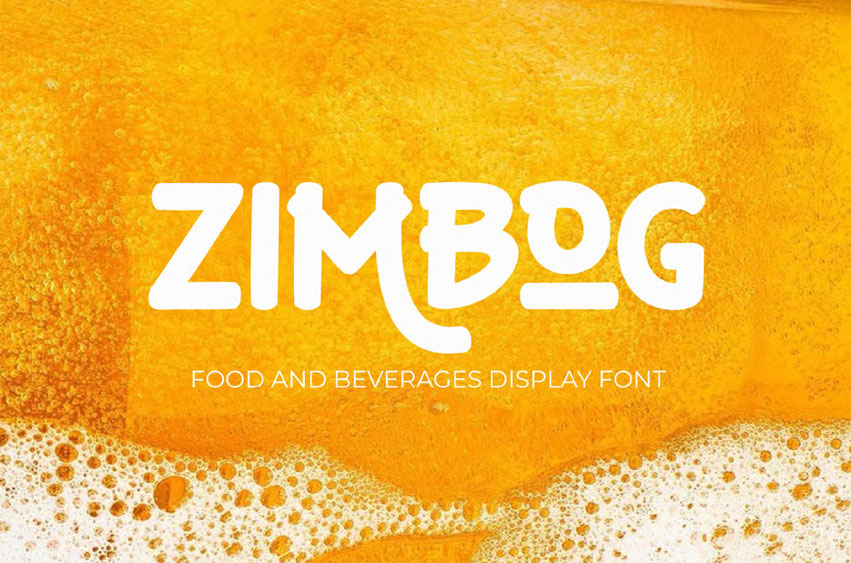
Zimbog Font is a bold and flavorful display font specially cooked up for the food and beverage industry. With chunky letterforms, smooth curves, and handcrafted charm, Zimbog adds a delightful personality to any design. Its retro-modern aesthetic blends nostalgic warmth with contemporary flair, making it perfect for brands that want to feel both fun and premium.
Whether you’re branding a cozy café, designing packaging for snacks or beverages, or crafting an eye-catching menu, Zimbog delivers the visual flavor to make your message stand out. The font’s versatile style can swing from playful and quirky to artisanal and bold, making it an essential ingredient in your creative toolkit.
- Café and restaurant branding
- Food packaging
- Beverage labels
- Menus and chalkboards
- Social media graphics for food & drinks
- Vintage-style posters and logos
- Handmade product labels
- Culinary blogs and recipe books
Serve up irresistible design with Zimbog—where every letter tastes like creativity.